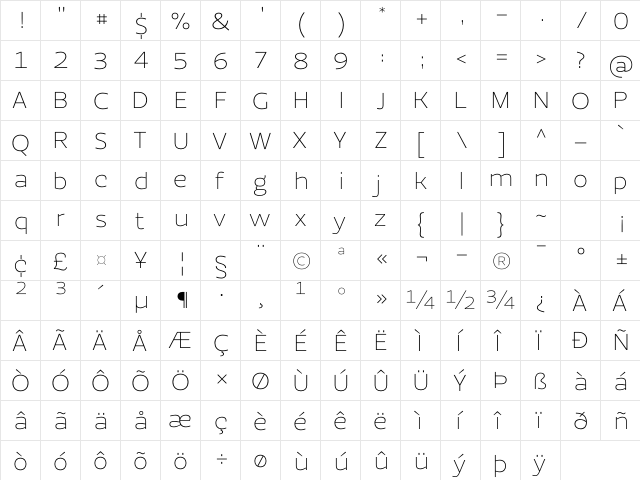
EzzoThin Regular
| Foundry | Dino dos Santos _DSType |
Design Context for EzzoThin Typeface
EzzoThin offers clean, dependable letterforms without strong stylistic allegiance, making it a practical choice for designers who need flexibility. The delicate stroke weight brings airiness and refinement to layouts.